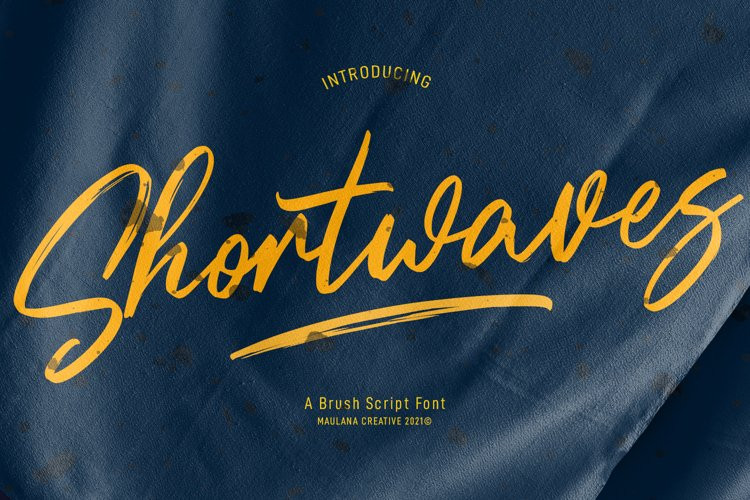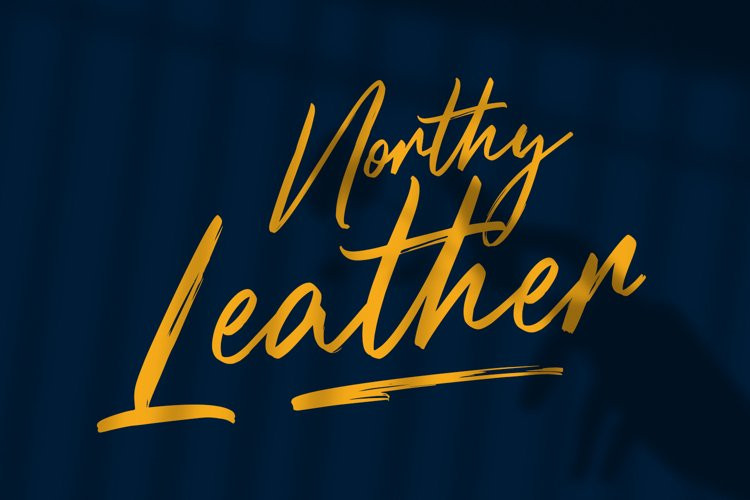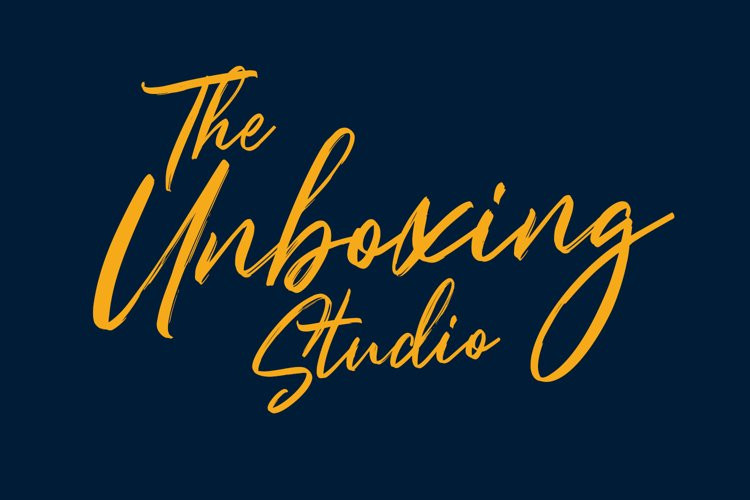
Shortwaves Font
Shortwaves FontShortwaves is a fancy brush script font. With rough brush stroke, slanted and Unique Upper and lower characters with bit of ligatures and alternate lowercase extra swashes. To give you an extra creative work. Shortwaves font support multilingual more than 100+ language. This font is good for logo design, Social media, Movie Titles, Books Titles, a short text even a long text letter and good for your secondary text font with sans or serif. Make a stunning work with Shortwaves font.